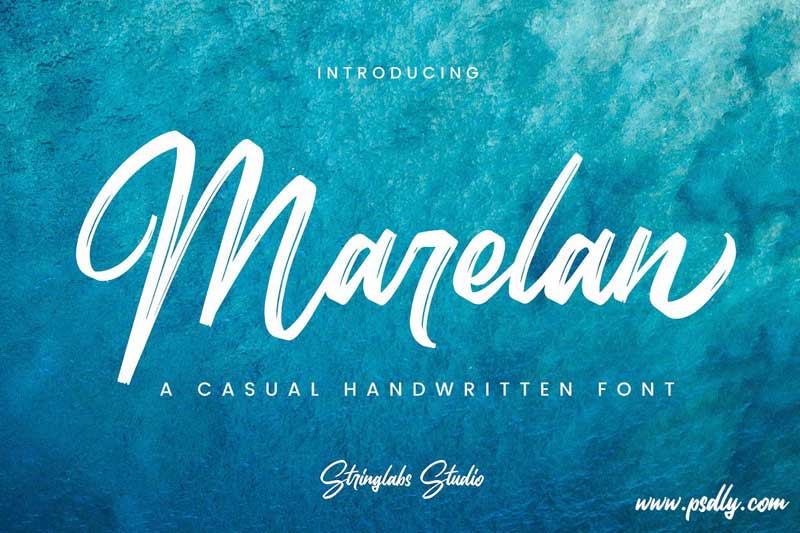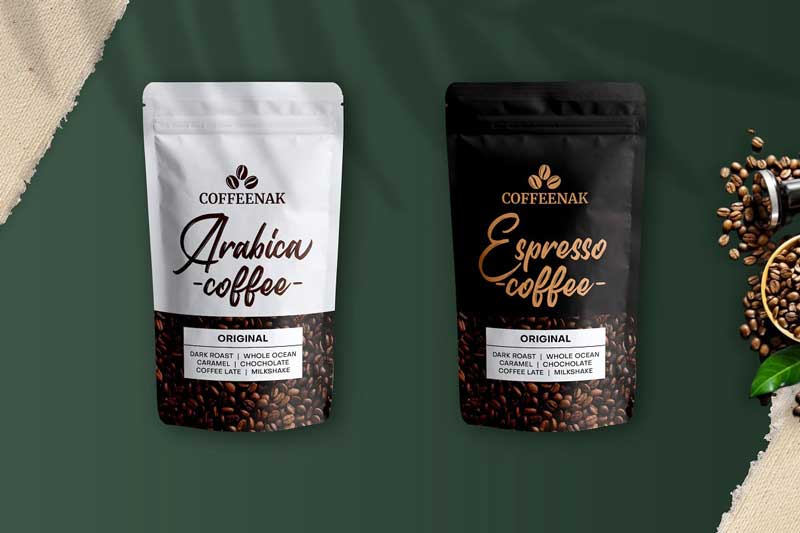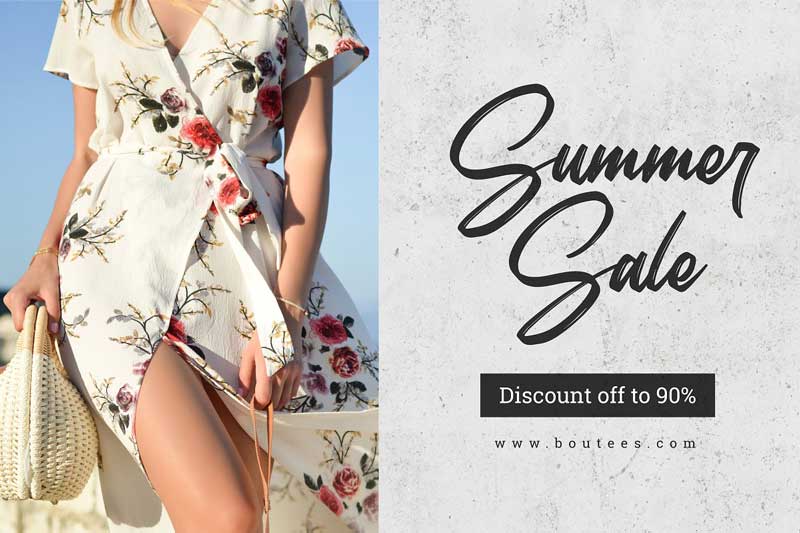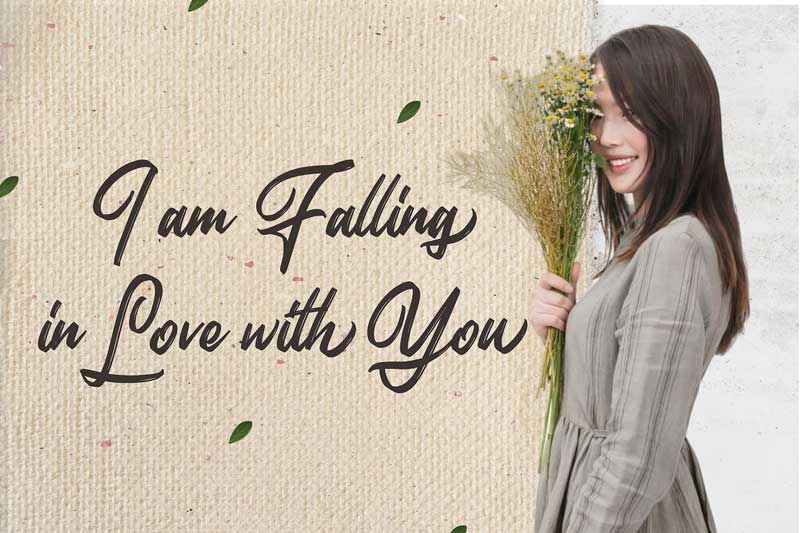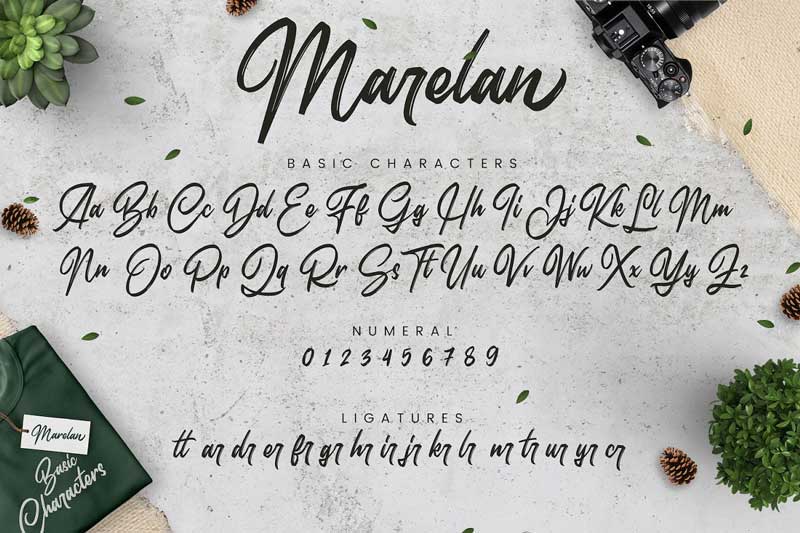
Marelan – Casual Handwritten Font
Marelan Casual Handwritten Font
Download Free Marelan Casual Handwritten Font. Marelan is a perfect choice for casual and natural lovers. This font has ligatures that you can use for customizing your font style. You can use this font for multipurpose such as Fashion, Packaging, Photography, Ceremony, Invitation, Logo Type and any more.